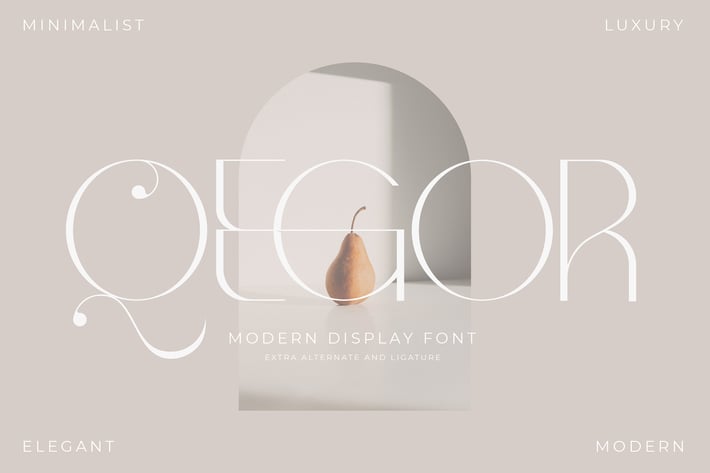
Qegor Modern Display Font
Qegor is a sleek modern display font built for minimalist, luxury-forward branding. With high contrast strokes, elegant curves, and stylish alternates/ligatures, it gives your headlines that premium editorial feel — clean, classy, and super photogenic on packaging or posters.
Modern display serif with luxury vibe
High-contrast letterforms for bold headlines
Includes alternates + ligatures for unique wordmarks
Clean spacing for premium layouts
Great readability at large sizes
Luxury branding & logo wordmarks
Fashion/editorial headlines
Beauty & skincare packaging
Wedding invites and classy stationery
Posters, covers, and social media hero text
Minimal look, maximum elegance — Qegor makes your typography feel expensive.*